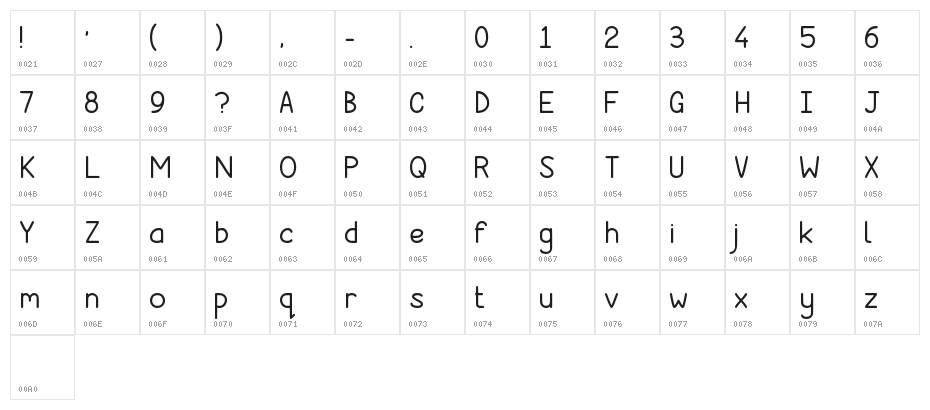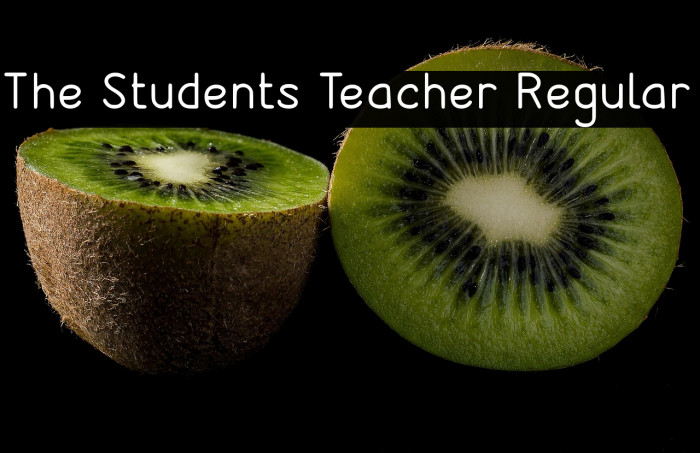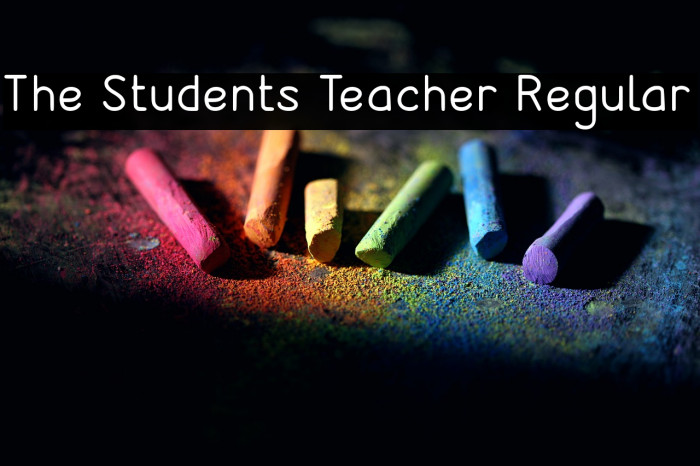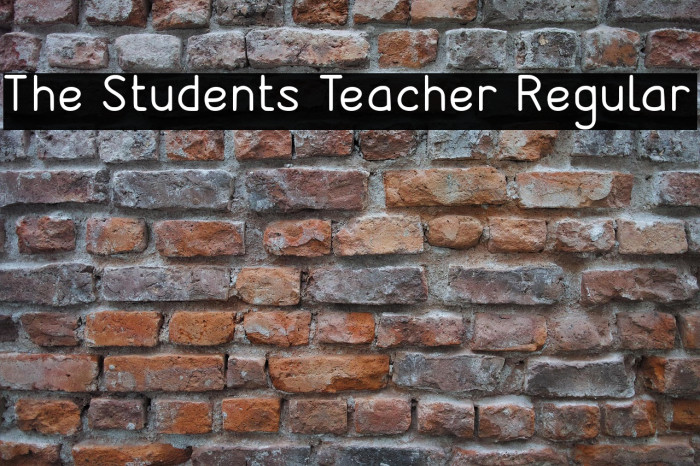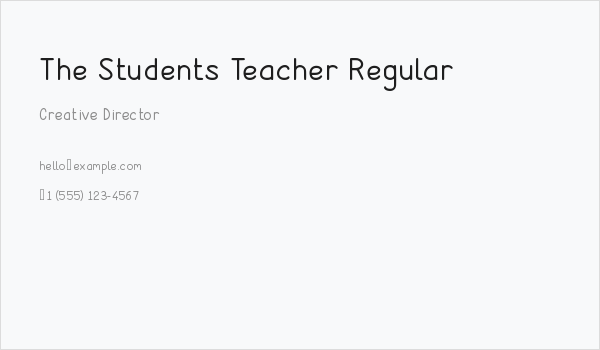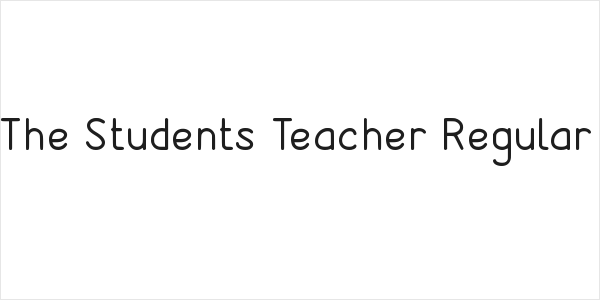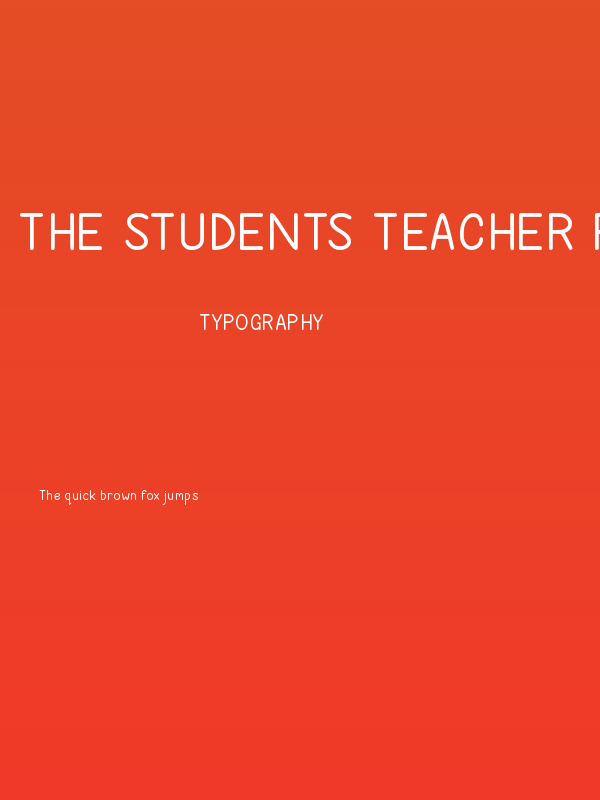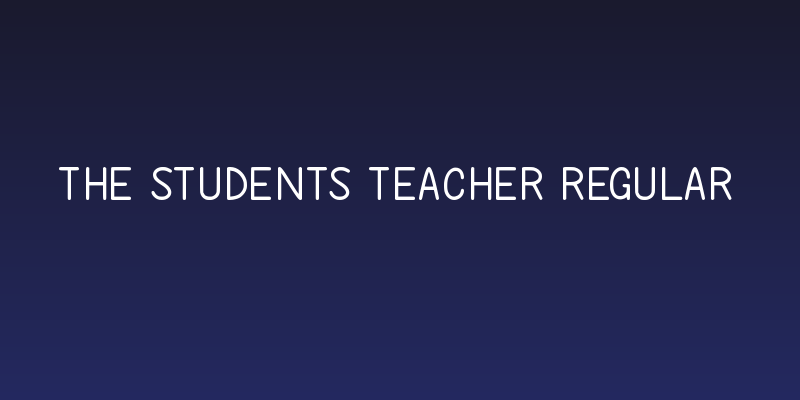
The Students Teacher Regular Font
The Students Teacher Regular Description
This font features a clean and approachable design with rounded edges and a consistent stroke width, giving it a friendly and informal appearance. The characters are evenly spaced, contributing to its readability. The uppercase letters are slightly taller than the lowercase, maintaining a balanced proportion. The numerals are clear and distinct, making them easily legible. Special characters are simple yet effective, fitting seamlessly with the overall style. This font's simplicity and clarity make it versatile for various applications.
| Proposed Projects | Ideal for educational materials, children's books, casual branding, and digital content. |